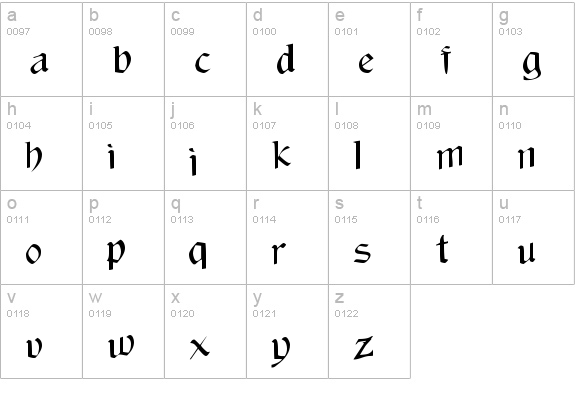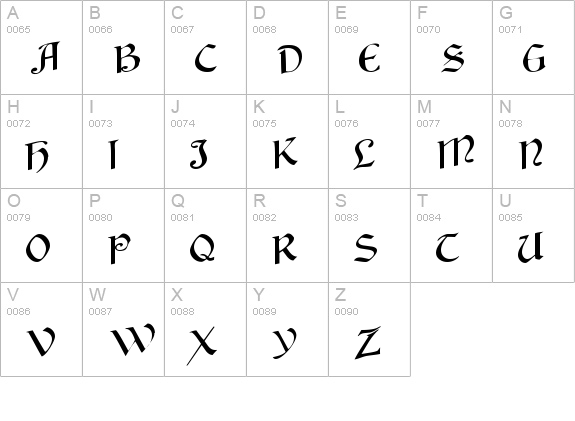
WackyCalligraphic Font Details
Introducing WackyCalligraphic font, a whimsical and playful typeface that will add a touch of fun and creativity to your projects. With its exaggerated and unconventional letterforms, this font is perfect for those seeking a unique and lighthearted design. WackyCalligraphic font is not only visually captivating but also highly versatile, making it suitable for a wide range of applications. Whether you're designing invitations, posters, logos, or even social media graphics, this font will bring a delightful twist to your creations. One of the best features of WackyCalligraphic font is that it is completely free! Yes, you read that right. This font is freely available to download at FontsMarket.com, allowing you to access its charm without any cost. So, whether you're a professional designer or a hobbyist, you can enjoy the benefits of this font without breaking the bank. What sets WackyCalligraphic font apart is its ability to inject a sense of playfulness and joy into your designs. The exaggerated curves and strokes create a whimsical feel, evoking a sense of childlike wonder and imagination. This font truly stands out and will instantly grab attention, making it perfect for projects that require a touch of quirkiness. The letterforms in WackyCalligraphic font are carefully crafted, ensuring legibility without compromising on style. Each character flows effortlessly into the next, creating a harmonious and visually appealing overall look. The font also includes a variety of alternate characters and ligatures, allowing you to further enhance your designs and create a truly unique aesthetic. Whether you're designing for print or digital media, WackyCalligraphic font will bring your projects to life with its vibrant and energetic presence. Its versatility makes it suitable for a multitude of contexts, from children's book illustrations to branding for playful and imaginative businesses. So, why wait? Head over to FontsMarket.com and download WackyCalligraphic font now, and let your creativity run wild. Embrace the whimsy and add a touch of wackiness to your designs with this delightful and freely available typeface.